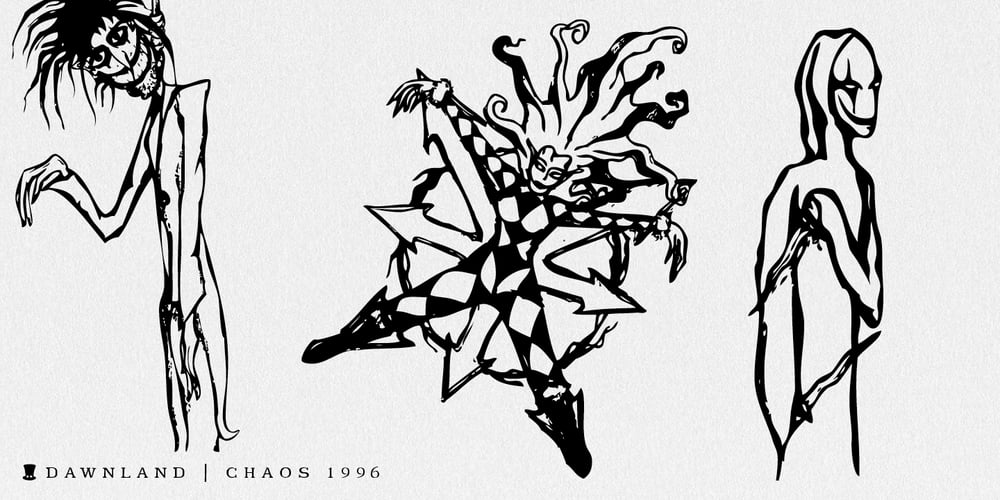
Chaos1996 Font Family was designed by Daniel Viberg and published by Dawnland. Chaos1996 contains 1 styles and family package options. Graphite/4b pen illustrations from the past resurrected as vector/tattoo-art! The detailed illustrations can be displayed at large sizes/full magazine layout page down to thumbnail size! a-l: The full Zodiac of Chaos m-u: Parts from the Tarot of Chaos v-z: Faces of Chaos A total of 26 unique illustrations. Upper case A-Z hold mirrored versions. Enjoy!